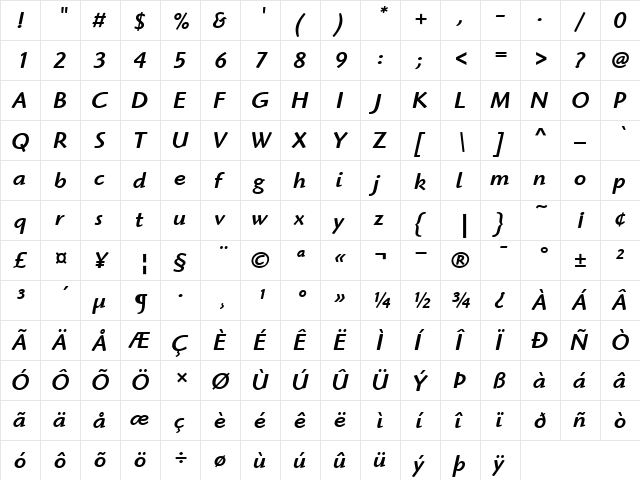
ITCHighlander-Medium MediumItalic Font Preview
ITCHighlander-Medium MediumItalic
ITCHighlander-Medium MediumItalic Font Details
Design Context for ITCHighlander-Medium Typeface
ITCHighlander-Medium offers clean, dependable letterforms without strong stylistic allegiance, making it a practical choice for designers who need flexibility. The dynamic lean of this cut emphasises speed and emphasis in any layout.
Pro Tip: Use ITCHighlander-Medium for emphasis, pull quotes, and subheadings where its slanted energy can add rhythm to the layout.